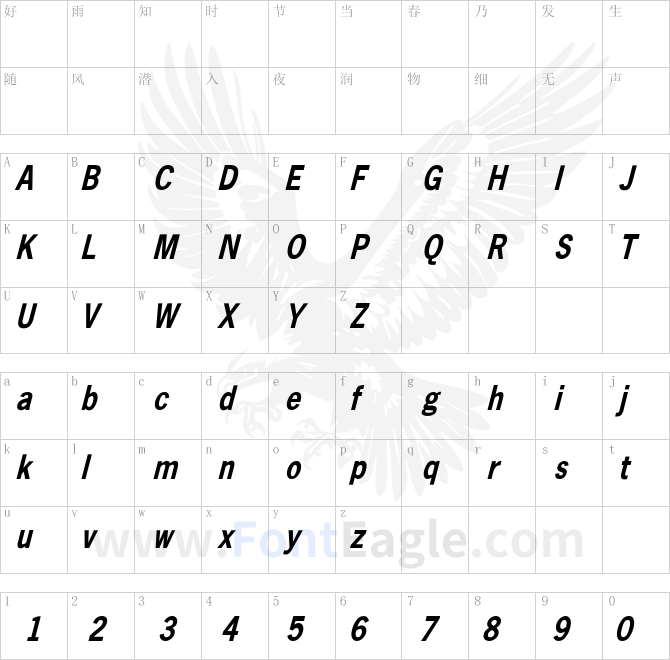
NewsGothicCndOb is a great font, widely used in graphic design, single-page menu design, poster design and other fields, and is deeply loved by designers.NewsGothicCndOb download.